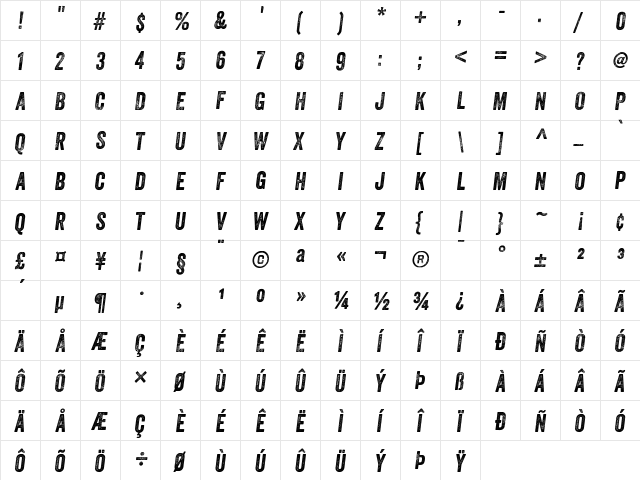
Veneer Two Italic
| Foundry | Ryan Martinson |
| Designer | Ryan Martinson |
Design Context for Veneer Two Typeface
Veneer Two takes a measured approach to typography — its balanced proportions and neutral character make it a reliable workhorse for both digital and print work. The slanted form adds forward momentum and visual energy.
Pro Tip: Use Veneer Two for emphasis, pull quotes, and subheadings where its slanted energy can add rhythm to the layout.